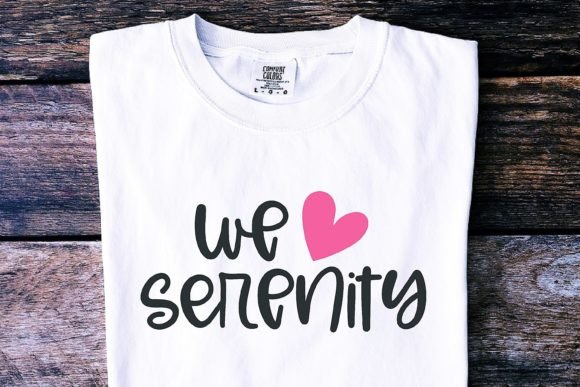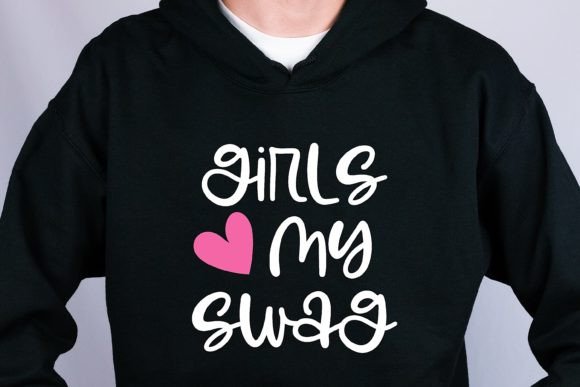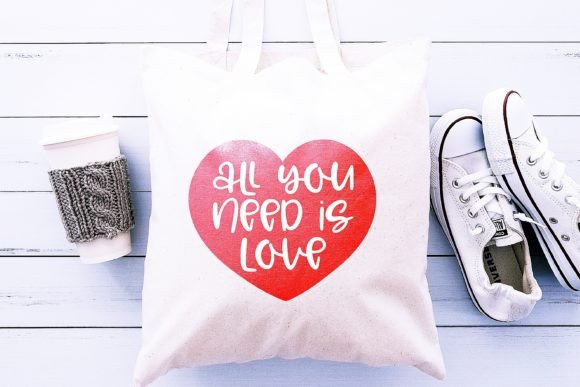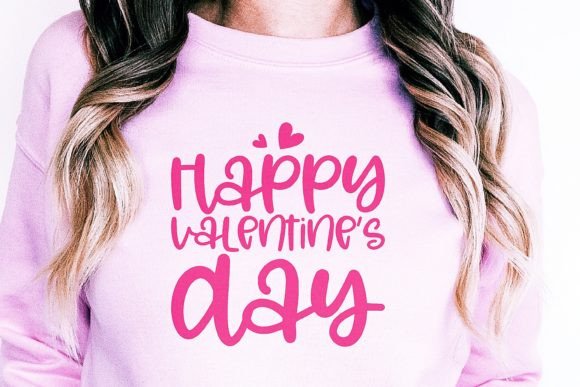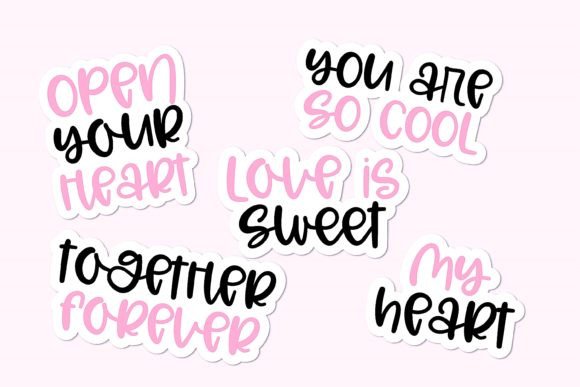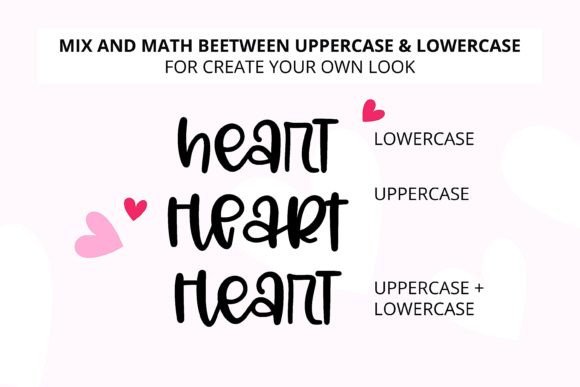
Introduction to Heart Whispers Font
Heart Whispers is a cool, friendly, and informal handwritten font that can be used for all chalkboard quotes or teaching material.
Its authentic look and feel will add a personal and realistic touch to your designs .